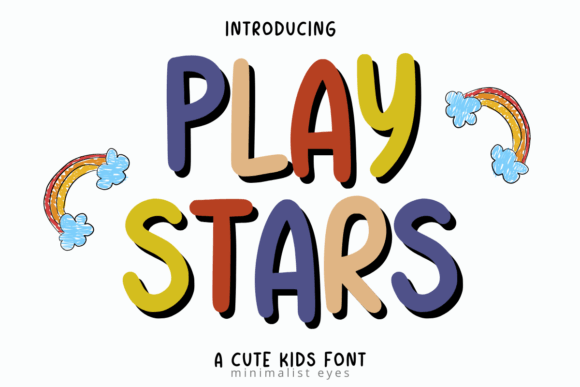
Introducing Play Stars Font: The Ultimate Choice for Whimsical and Playful Designs
Are you looking for a font that can add a touch of cuteness and playfulness to your designs? Look no further than Play Stars Font! This adorable display font is perfect for creating happy and uplifting designs that are sure to capture the attention of your audience. In this article, we’ll explore the features and benefits of Play Stars Font, and discuss how it can be used in a variety of creative projects.
What is Play Stars Font?
Play Stars Font is a unique and charming display font that is designed to evoke happy feelings. Its adorable and cute style makes it perfect for use in a variety of creative projects, from back to school themes and birthday cards to children’s writing and chalk-inspired designs. The font’s playful and whimsical design is sure to add a touch of fun and personality to any project.
Features of Play Stars Font
So, what makes Play Stars Font so special? Here are just a few of its key features:
- Adorable and Cute Display Style: Play Stars Font has a unique and charming display style that is sure to capture the attention of your audience.
- Whimsical and Playful Design: The font’s playful and whimsical design makes it perfect for use in creative projects that require a touch of fun and personality.
- Suitable for a Variety of Projects: Play Stars Font is versatile and can be used in a variety of creative projects, from back to school themes and birthday cards to children’s writing and chalk-inspired designs.
Uses of Play Stars Font
So, how can you use Play Stars Font in your creative projects? Here are just a few ideas:
- Back to School Themes: Play Stars Font is perfect for creating back to school themes, including worksheets, posters, and other educational materials.
- Birthday Cards: The font’s playful and whimsical design makes it perfect for use in birthday cards and other celebratory materials.
- Children’s Writing: Play Stars Font is a great choice for children’s writing projects, including storybooks, poems, and other creative writing assignments.
- Chalk-Inspired Designs: The font’s chalk-inspired design makes it perfect for use in chalk-inspired designs, including posters, flyers, and other marketing materials.
- Holiday Greetings: Play Stars Font is perfect for creating holiday greetings, including Thanksgiving cards and other seasonal materials.
- Handicraft Businesses: The font’s playful and whimsical design makes it perfect for use in handicraft businesses, including craft projects and other handmade materials.
- Greeting Cards: Play Stars Font is a great choice for creating greeting cards, including birthday cards, get well cards, and other celebratory materials.
- T-Shirts and Mugs: The font’s playful and whimsical design makes it perfect for use on t-shirts, mugs, and other wearable and usable items.
- Decorations and Craft Projects: Play Stars Font is perfect for use in decorations and craft projects, including scrapbooking, card making, and other paper crafting projects.
- Embroidery: The font’s playful and whimsical design makes it perfect for use in embroidery projects, including custom embroidery designs and other stitched materials.
Benefits of Using Play Stars Font
So, why should you choose Play Stars Font for your creative projects? Here are just a few benefits of using this adorable display font:
- Adds a Touch of Cuteness and Playfulness: Play Stars Font adds a touch of cuteness and playfulness to any project, making it perfect for use in creative projects that require a touch of fun and personality.
- Versatile and Flexible: The font is versatile and can be used in a variety of creative projects, from back to school themes and birthday cards to children’s writing and chalk-inspired designs.
- Easy to Read and Understand: Play Stars Font is easy to read and understand, making it perfect for use in projects that require clear and legible text.
Tips for Using Play Stars Font
Here are just a few tips for using Play Stars Font in your creative projects:
- Use it in Combination with Other Fonts: Play Stars Font can be used in combination with other fonts to create a unique and visually appealing design.
- Experiment with Different Colors and Textures: The font’s playful and whimsical design makes it perfect for use with different colors and textures, so don’t be afraid to experiment and try new things.
- Use it to Add a Touch of Personality: Play Stars Font is perfect for adding a touch of personality to your designs, so use it to make your projects stand out from the crowd.
In conclusion, Play Stars Font is a unique and charming display font that is perfect for adding a touch of cuteness and playfulness to your designs. Its adorable and cute style makes it perfect for use in a variety of creative projects, from back to school themes and birthday cards to children’s writing and chalk-inspired designs. With its versatile and flexible design, Play Stars Font is sure to become a favorite in your font collection.